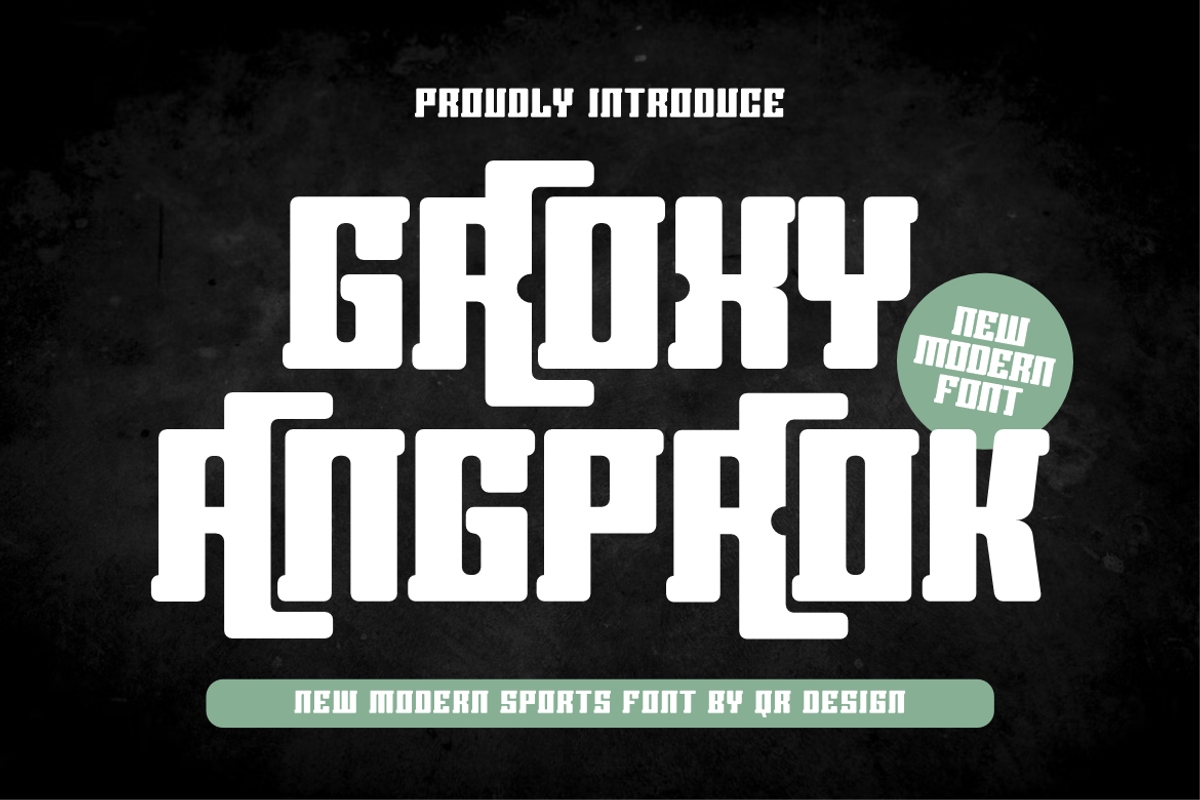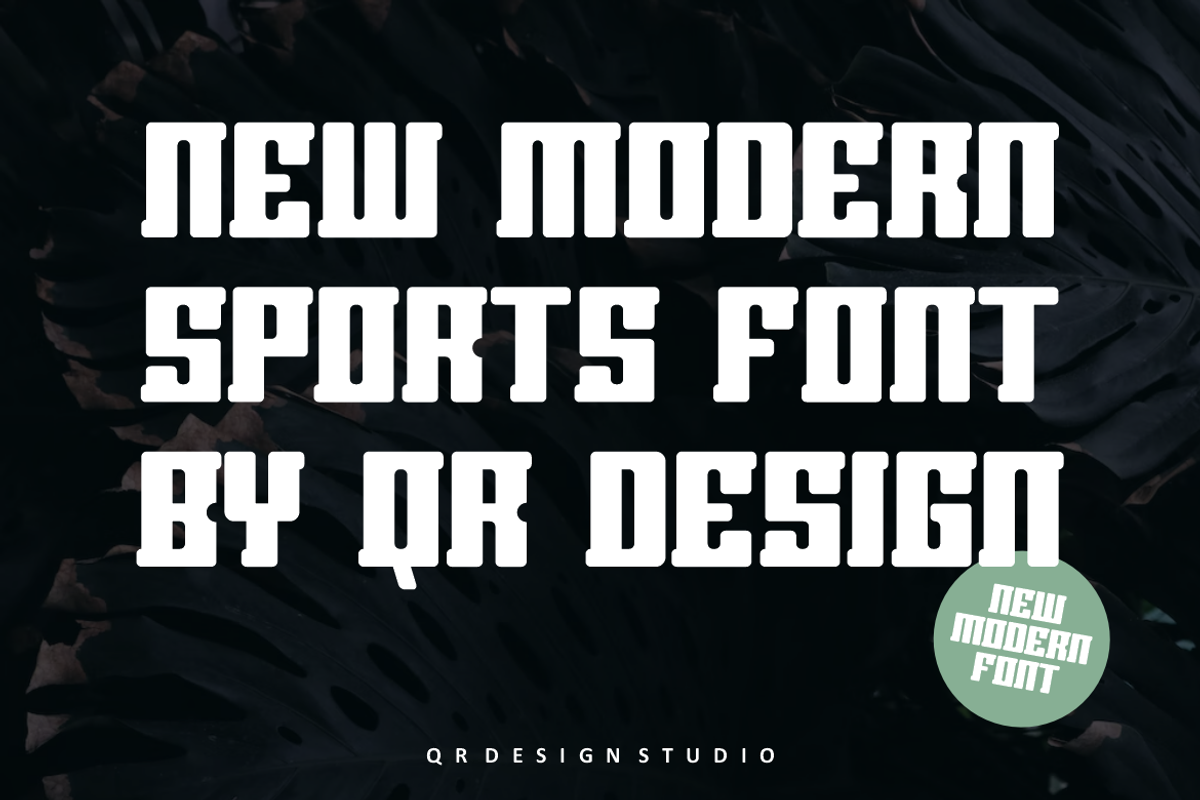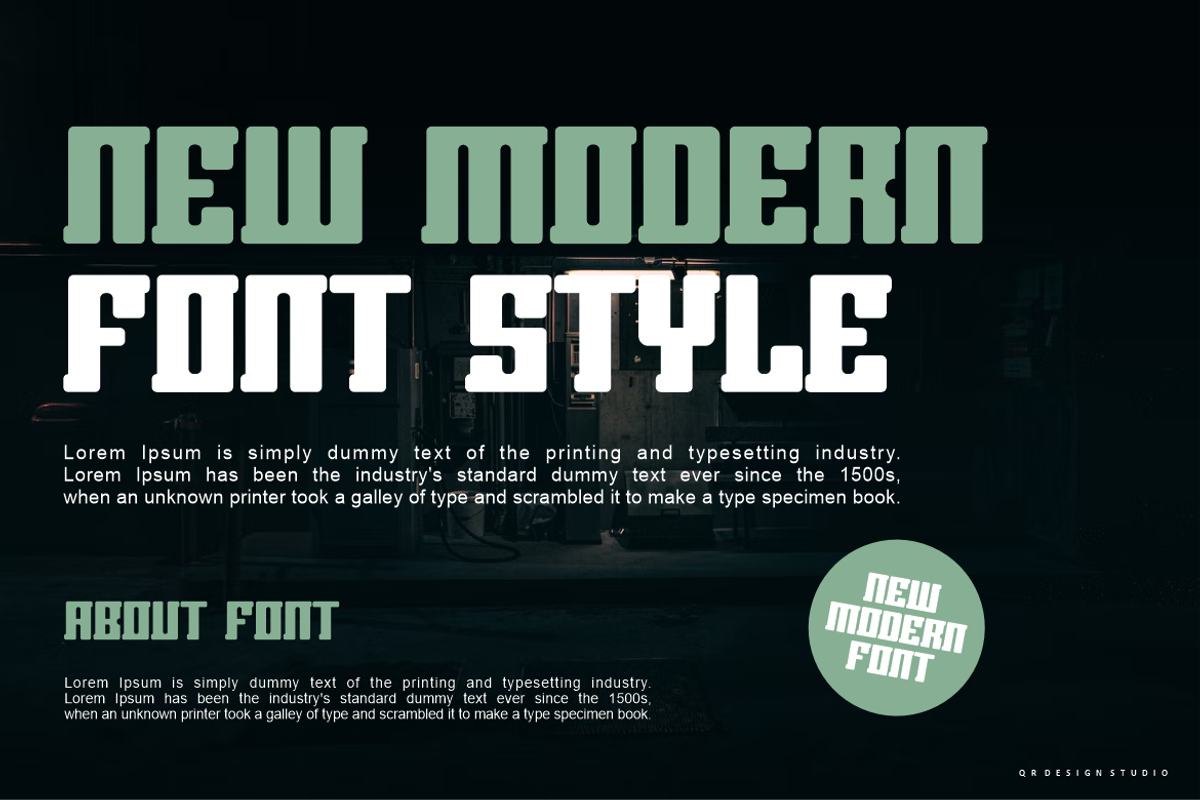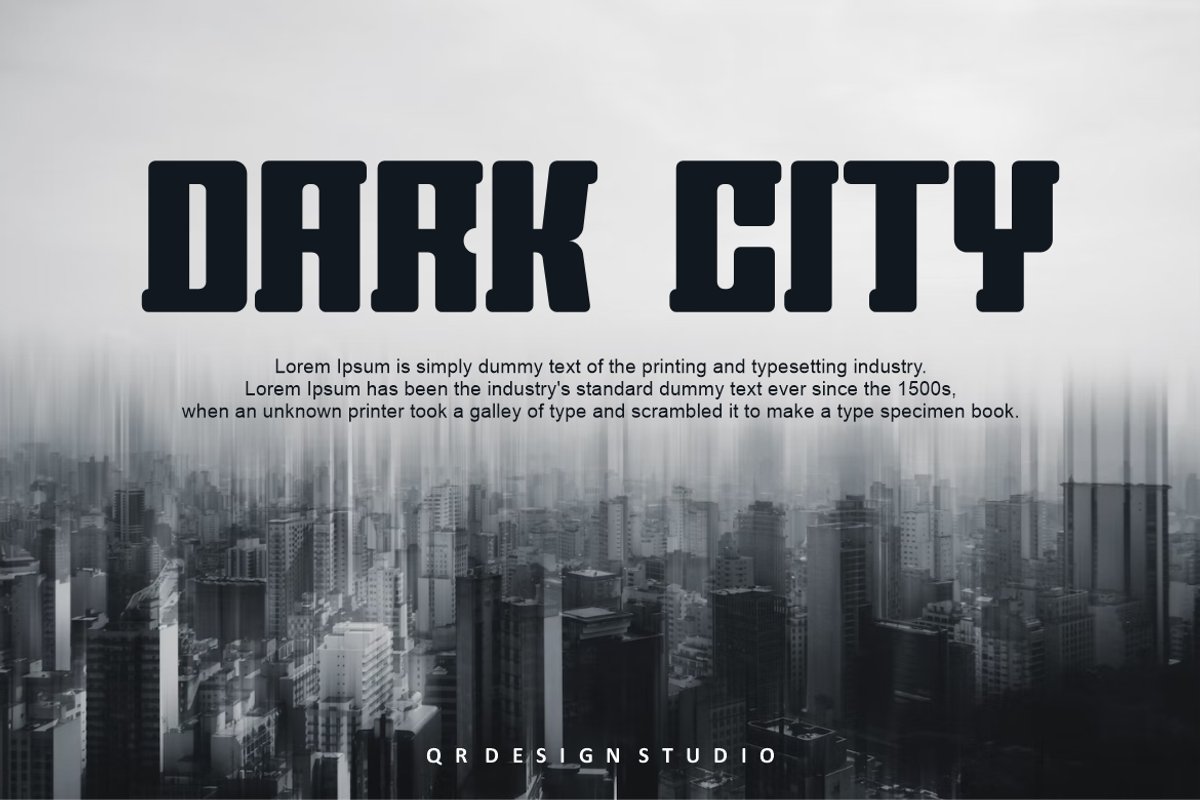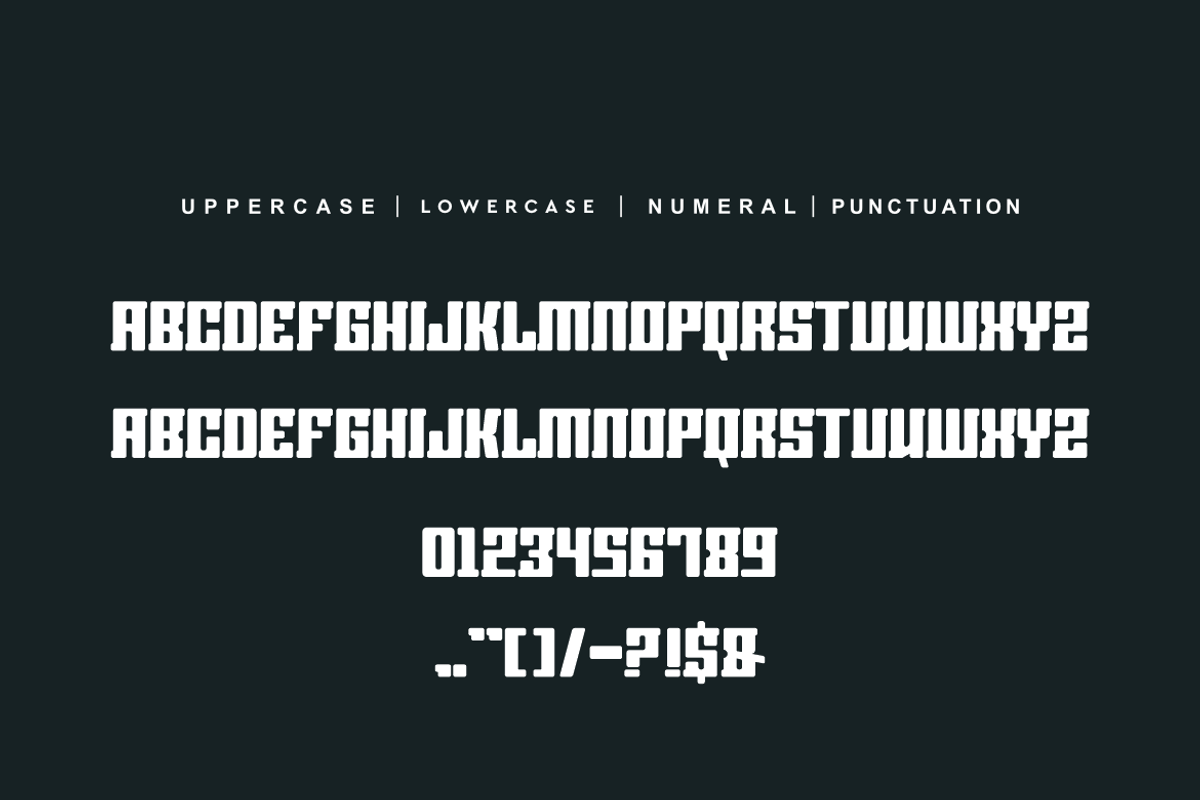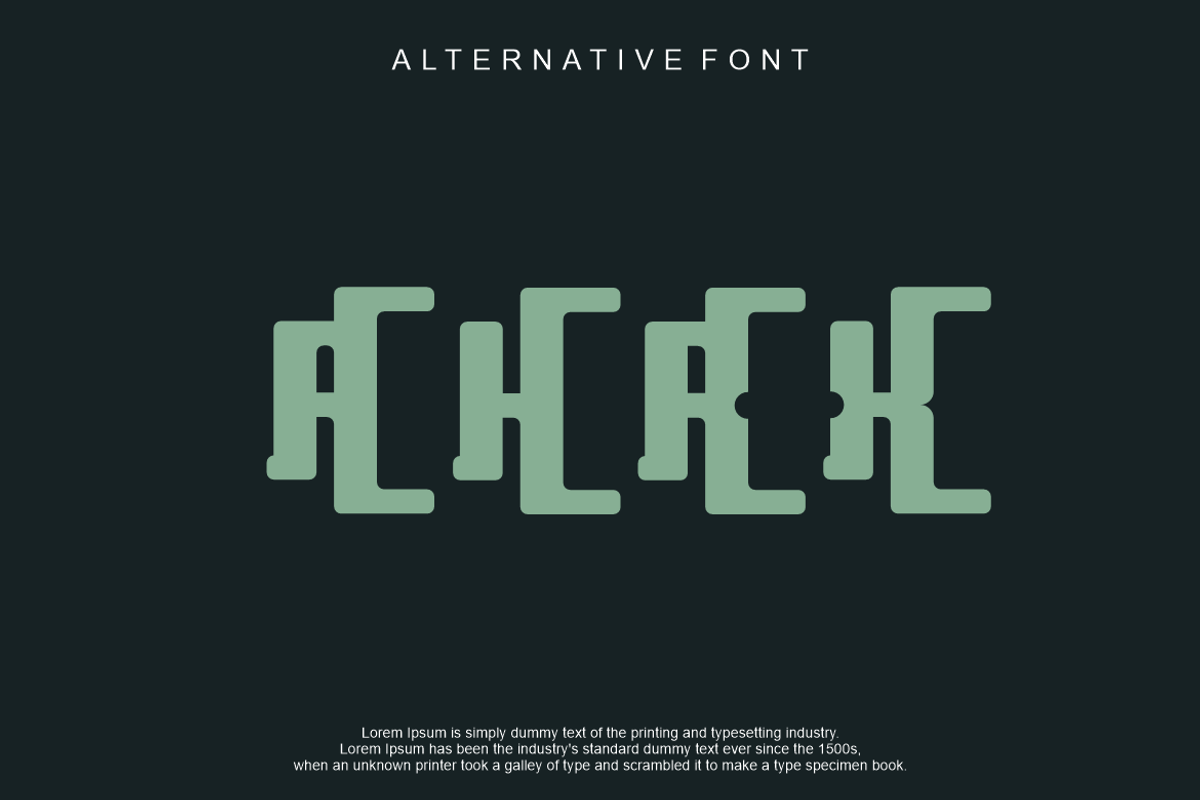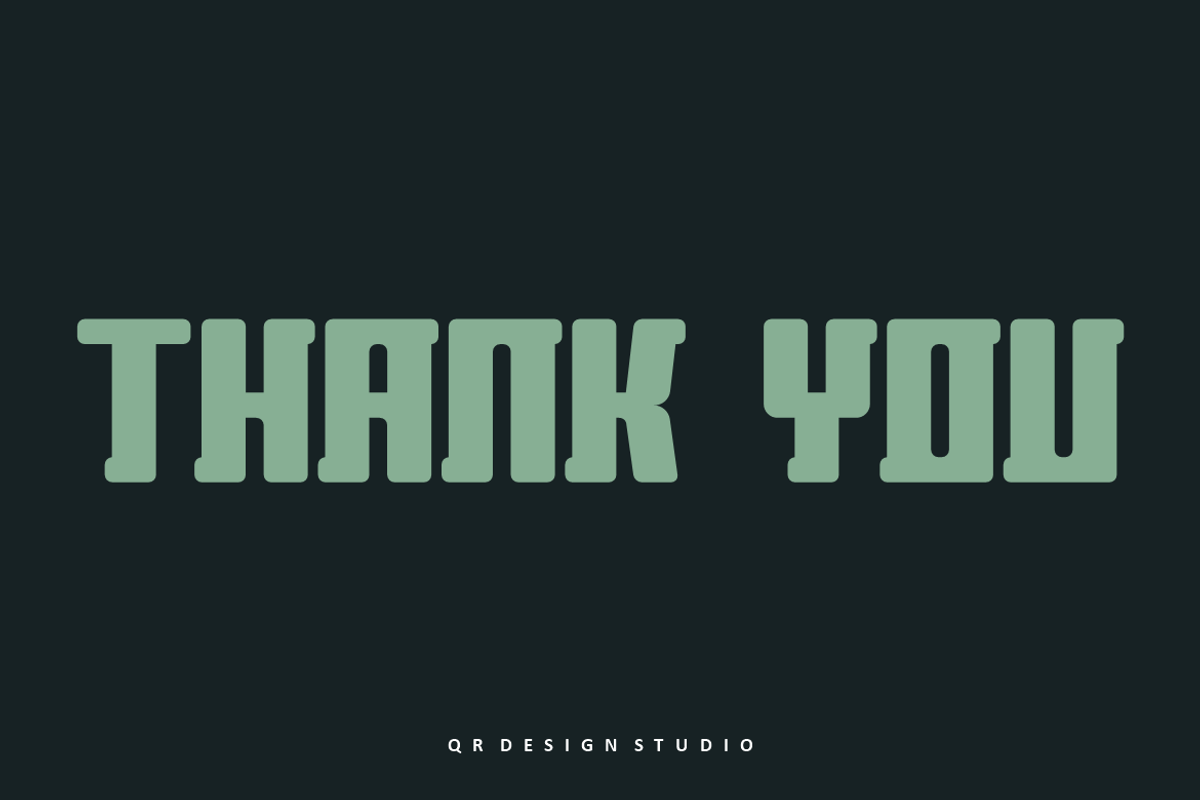
Groxy Angproak Font
Groxy Angproak Font Font is a bold and authentic display font. The font is suitable for any branding project like logo, sport, and many more. Outstanding in a wide range of contexts.